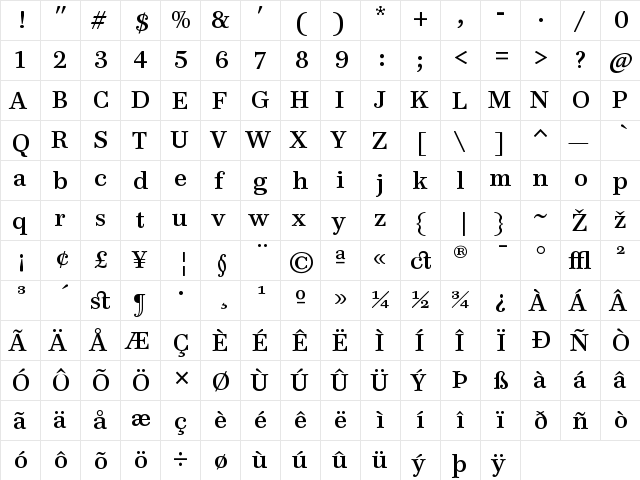
Design Context for PB9TTP-RomanLF Typeface
PB9TTP-RomanLF takes a measured approach to typography — its balanced proportions and neutral character make it a reliable workhorse for both digital and print work.
Pro Tip: Use PB9TTP-RomanLF in both headline and body roles to test its range before committing to a single application.